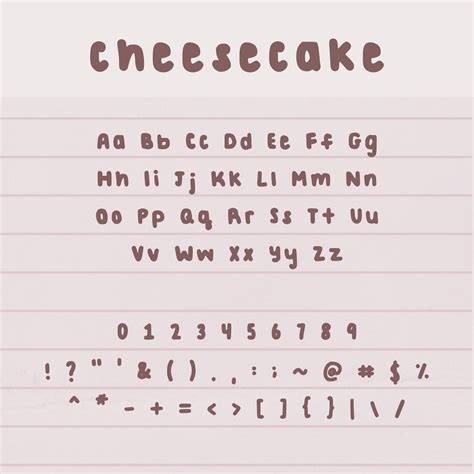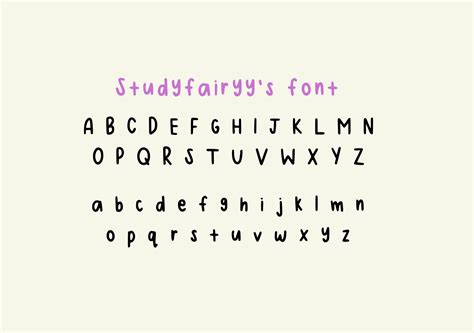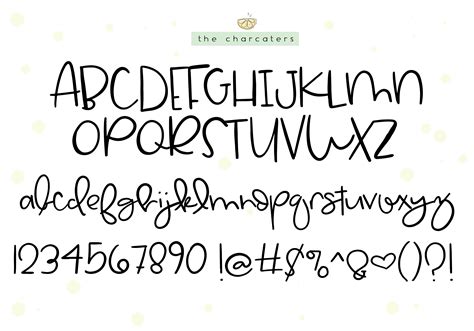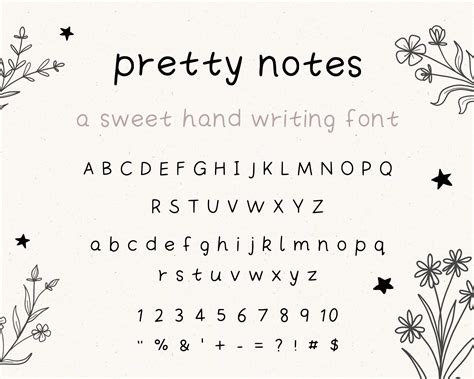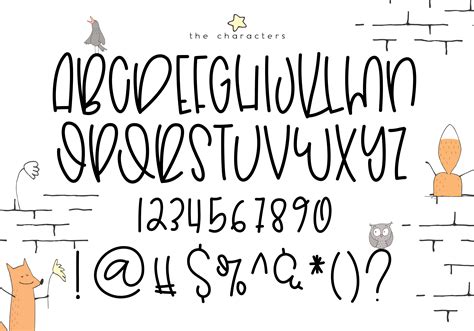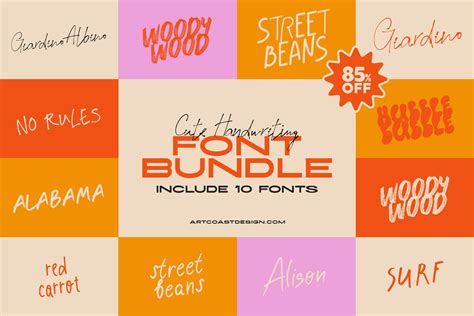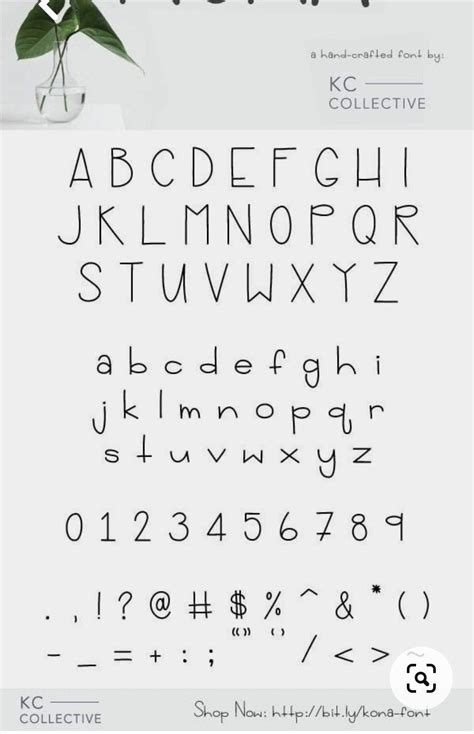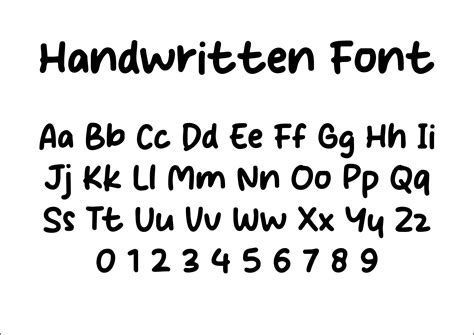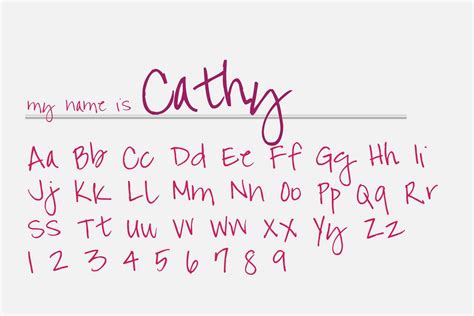
In the digital age, where screens dominate our visual landscape, there's something uniquely charming about the tactile, personal touch of handwritten text. Cute handwritten fonts bring that warmth and personality to digital media, making them a popular choice for designers, bloggers, and creatives. These fonts evoke a sense of nostalgia and authenticity, making them perfect for a variety of projects, from wedding invitations to social media graphics.
Understanding Cute Handwritten Fonts
Cute handwritten fonts are designed to mimic the natural, imperfect strokes of handwriting. They often feature playful, whimsical elements that make them stand out from standard, formal fonts. These fonts are versatile and can be used in a wide range of applications, from personal projects to professional designs.
Characteristics of Cute Handwritten Fonts
Cute handwritten fonts are characterized by several key features:
- Informal Style: These fonts have a casual, relaxed appearance, making them ideal for informal settings.
- Playful Elements: Many cute handwritten fonts include playful details like swashes, loops, and irregular strokes.
- Legibility: Despite their informal style, these fonts are designed to be easy to read, ensuring that your message is clear.
- Versatility: Cute handwritten fonts can be used in a variety of contexts, from personal correspondence to commercial projects.
Popular Cute Handwritten Fonts
There are numerous cute handwritten fonts available, each with its unique charm. Here are a few popular options:
- Pacifico: This font is known for its bold, playful strokes and is often used for headlines and logos.
- Great Vibes: With its elegant, flowing script, Great Vibes is perfect for invitations and special occasions.
- Lobster: Lobster features thick, rounded letters that give it a friendly, approachable feel.
- Dancing Script: This font has a dynamic, energetic style, making it ideal for creative projects.
How to Choose the Right Cute Handwritten Font
Selecting the right cute handwritten font depends on the specific needs of your project. Here are some tips to help you choose:
- Consider the Tone: Think about the mood you want to convey. For example, a playful font might be perfect for a children's party invitation, while a more elegant script could be better for a wedding.
- Check Legibility: Ensure that the font is easy to read, especially if you're using it for body text.
- Match the Style: Choose a font that complements the overall design of your project. For instance, a whimsical font might not be the best choice for a formal business report.
Using Cute Handwritten Fonts in Design Projects
Cute handwritten fonts can add a personal touch to various design projects. Here are some ideas for incorporating them into your work:
- Invitations: Use a cute handwritten font for wedding invitations, birthday party invitations, or any special event.
- Social Media Graphics: Create eye-catching graphics for social media posts, stories, or covers.
- Blog Headers: Add a personal touch to your blog posts with a cute handwritten font for headers and titles.
- Logo Design: Incorporate a handwritten font into your logo design for a unique, memorable look.
Tips for Effective Use of Cute Handwritten Fonts
To make the most of cute handwritten fonts, follow these tips:
- Pair with Simple Fonts: Combine cute handwritten fonts with simple, clean fonts for body text to ensure readability.
- Use Sparingly: Avoid overusing handwritten fonts, as they can become overwhelming. Use them for headlines, titles, or short phrases.
- Adjust Size: Experiment with different font sizes to find the best balance between style and legibility.
- Consider Color: Choose colors that complement the font and enhance its playful or elegant qualities.
Examples of Cute Handwritten Fonts in Action
To inspire your next project, here are some examples of cute handwritten fonts in use:
| Project Type | Font Used | Effect |
|---|---|---|
| Wedding Invitations | Great Vibes | Elegant and romantic |
| Children's Party Invitations | Pacifico | Playful and fun |
| Social Media Graphics | Dancing Script | Energetic and dynamic |
| Blog Headers | Lobster | Friendly and approachable |
π Note: When using cute handwritten fonts, always consider the context and audience of your project. What works for a playful children's party invitation might not be suitable for a formal business document.
Cute handwritten fonts are a fantastic way to add a personal, tactile touch to your digital projects. Whether you're designing invitations, social media graphics, or blog headers, these fonts can help you create visually appealing and emotionally resonant content. By understanding the characteristics of cute handwritten fonts and knowing how to use them effectively, you can elevate your designs and make a lasting impression on your audience.